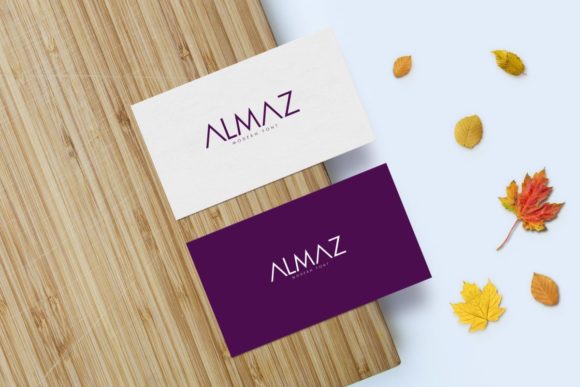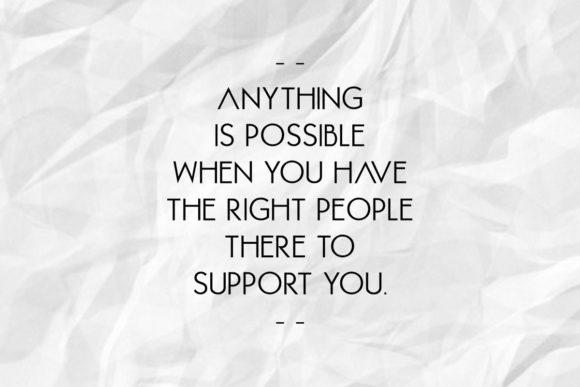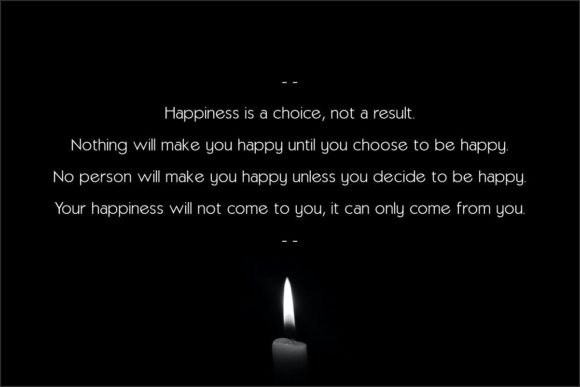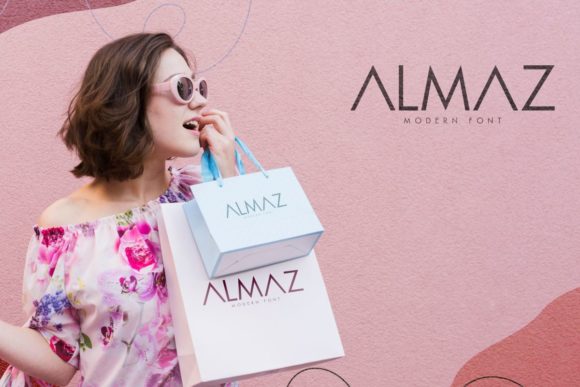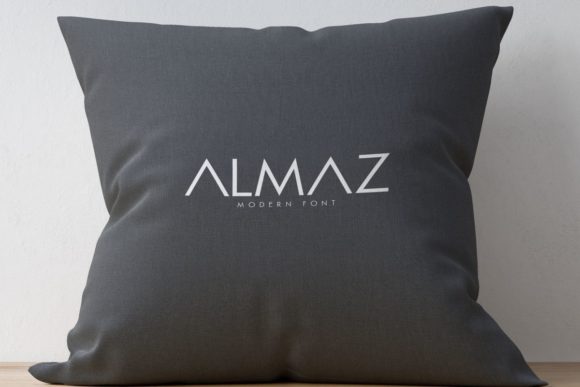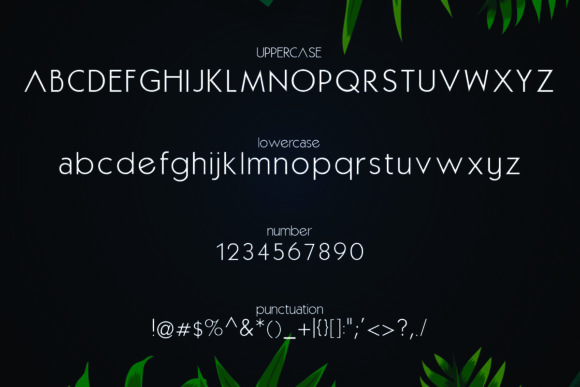
Discover the Power of Almaz Font
Have you ever stared at a blank canvas, searching for the perfect combination of words and images to bring your creative vision to life? It’s a feeling we’ve all experienced at some point, and it’s what drives us to keep pushing the boundaries of design. For many of us, the key to unlocking that perfect moment lies in the right font – and that’s where Almaz Font comes in.
This clean and thin lettered sans serif font is a game-changer for designers. Its versatility makes it an ideal choice for a wide range of projects, from sleek and modern websites to elegant business cards and more. Whether you’re working on a high-end branding project or a simple social media graphic, Almaz Font is sure to elevate your designs and make them stand out.
Almaz Font Key Features
- Font Type: Sans-Serif, with a unique blend of modern and traditional design elements.
- Language Support: Supports multiple languages, including Latin, Cyrillic, and Greek alphabets, making it a versatile font for global use.
- Unique Characteristics: Almaz Font features a distinctive, hand-crafted feel with subtle flair and flair, giving it a premium and sophisticated look.
Almaz Font Review
Overall, I think the Almaz Font has some interesting features, but it’s not without its limitations.
✨ The font’s unique blend of modern and vintage elements is quite striking. The subtle flair at the terminals and the elegant proportions make it a great choice for designs that need a touch of sophistication.
- ⚠️ The font’s weight system is somewhat limited, with only four weights available. This can make it challenging to achieve the desired level of contrast and visual hierarchy in your design.
- ⚠️ The font’s x-height is a bit inconsistent across the different weights, which can affect the overall readability of your text.
While the Almaz Font has some great qualities, its limitations make it less versatile than some other fonts on the market. However, if you’re looking for a unique, high-end feel for a specific project, it might be worth considering. Just be aware of its limitations and plan accordingly.
For a more professional look, pair Almaz Font with a clean and simple background.
For a striking effect, combine Almaz Font with bold lines and geometric shapes.
For a cohesive look, use Almaz Font consistently throughout your presentation or document.
Tips for Getting the Most Out of Almaz Font
Pair Almaz Font with a clean and simple background to create a professional look.
Experiment with different font sizes and styles to add visual interest.
Combine Almaz Font with bold lines and geometric shapes for a striking effect.
Almaz Font is ideal for:
Headings and titles
Body text in digital interfaces
Branding and logos
Infographics and data visualizations
Alternatives to Almaz Font
Montserrat is a modern sans-serif font with geometric shapes. It is ideal for use in digital products, especially for headings and titles due to its clean and crisp look. Montserrat is more geometric and has a more pronounced x-height compared to Almaz Font.
Open Sans is a clean and legible sans-serif font. It is suitable for body text, especially for long blocks of text due to its high readability. Open Sans is more rounded and has a softer feel compared to Almaz Font.
3. Inter
Inter is a modern sans-serif font with a clean and minimalist design. It is ideal for use in digital products, especially for body text and headings due to its high readability and versatility. Inter is more neutral and has a more balanced feel compared to Almaz Font.
Lato is a modern sans-serif font with a clean and elegant design. It is suitable for use in digital products, especially for headings and titles due to its unique and stylish look. Lato is more rounded and has a more distinctive feel compared to Almaz Font.